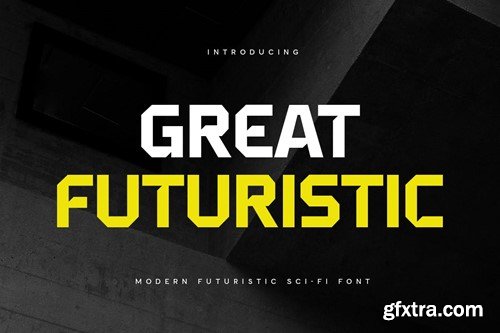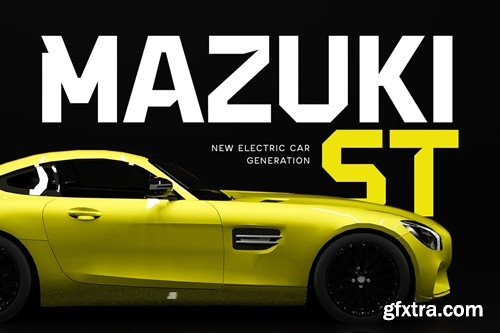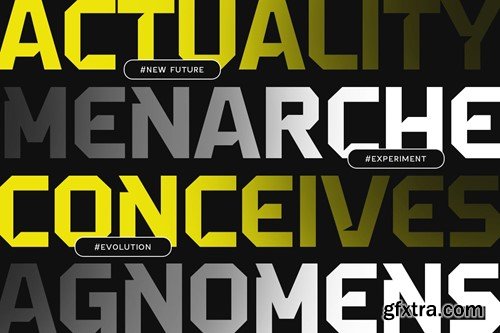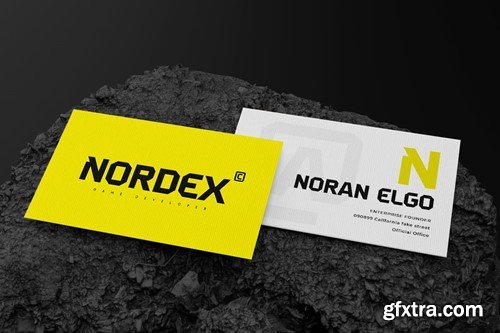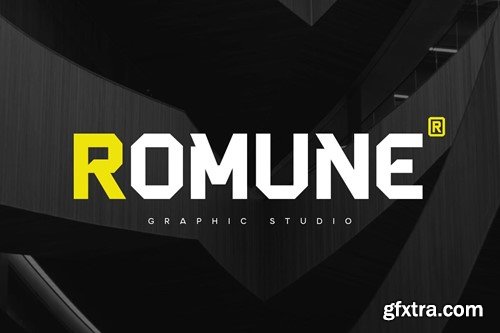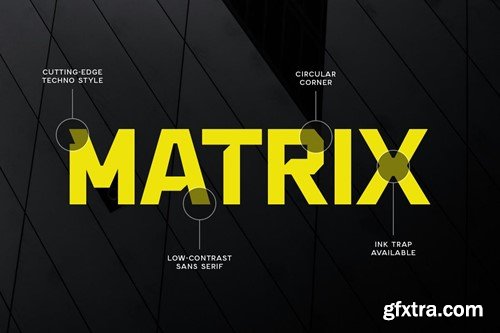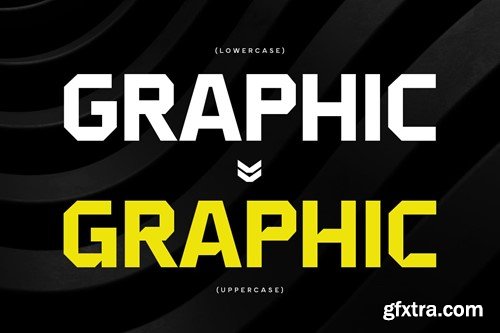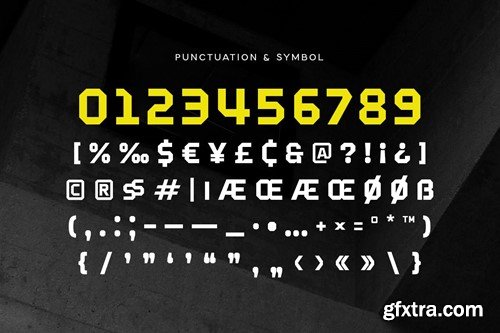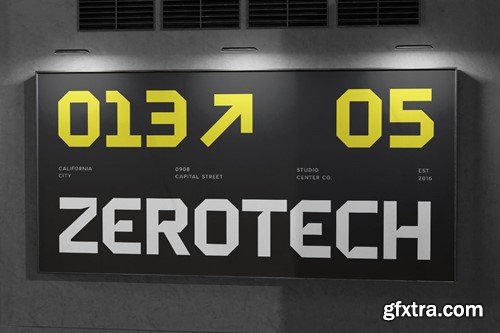
伟大未来主义 - 现代未来主义科幻字体3EU5LEY
Great Futuristic - Modern Futuristic Scifi Font 3EU5LEY
Great Futuristic - Modern Futuristic Scifi Font
Great Futuristic is A Modern Futuristic Techno Font, This Modern Futuristic font are prepared special for Technology, Modern, and Futuristic design needs, that created special for Logo, Title and more stand out typography for futuristic and sci-fi. It's so perfect to add your style and headline overview for technology, film, space, and futuristic theme. And specially for this font, we've ready for modern feels so enjoy to create any project that will show your main idea out.
Great Futuristic is A Modern Futuristic Techno Font ready with:
• Ready with All-Caps Characters with different shape inside
• Perfect for Futuristic Design